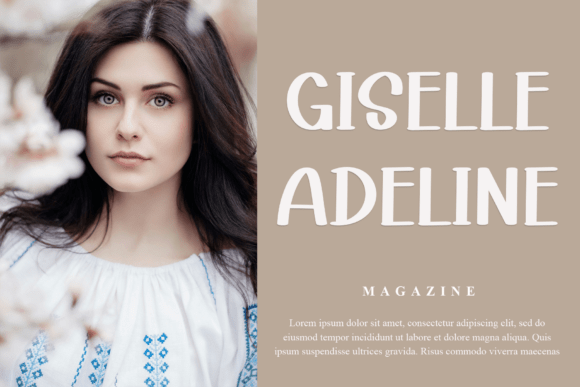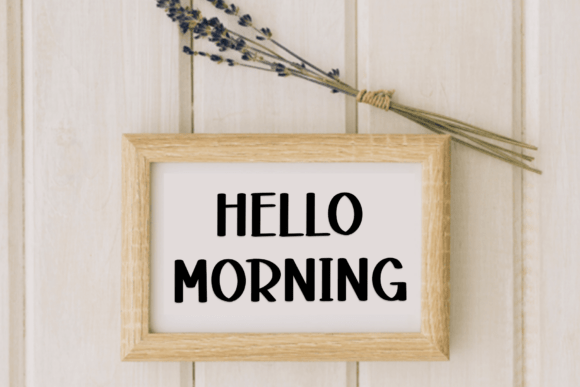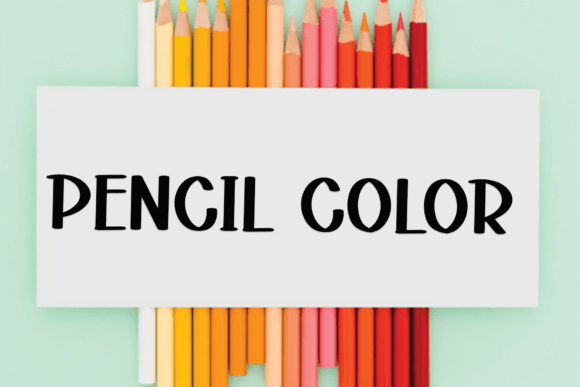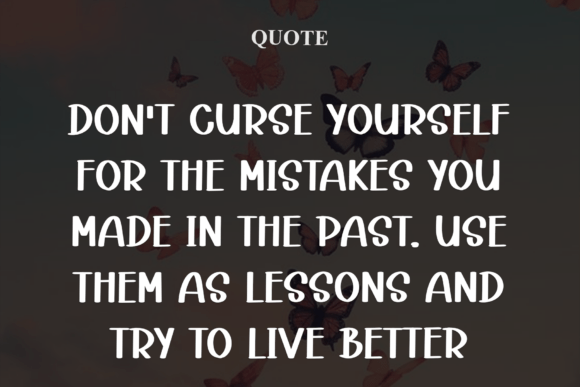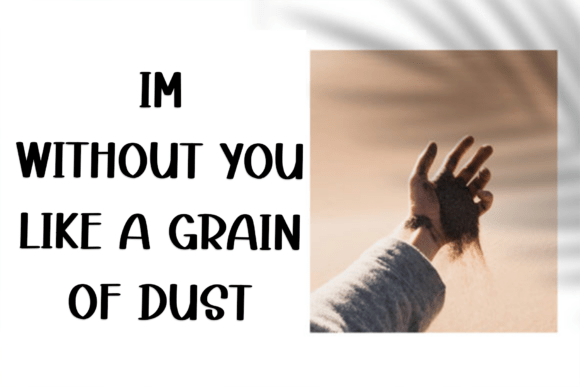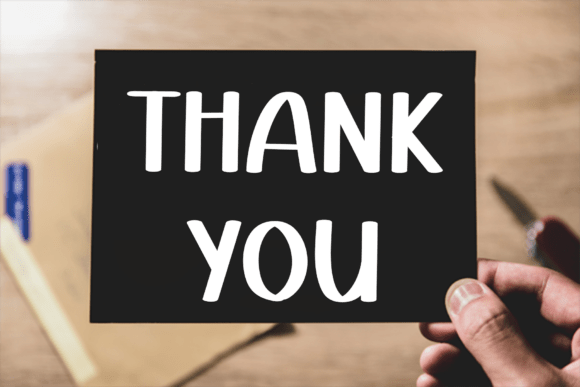
Introducing Hello Child Font: The Ultimate Choice for Kid-Friendly Designs
Are you a designer, teacher, or crafty entrepreneur looking for a font that’s perfect for creating engaging and playful designs for kids? Look no further than Hello Child Font! This delightful display sans-serif font is specifically designed to create bold, kid-friendly headlines that are sure to capture the attention of young minds.
What Makes Hello Child Font So Special?
Hello Child Font is a playful, rounded display sans-serif with chunky strokes and soft terminals that give it a unique and endearing personality. Its tidy spacing and smooth curves ensure that text remains readable, even at larger font sizes, making it ideal for a variety of applications, including:
- Posters and flyers for kids’ events and activities
- Worksheets and educational materials for classrooms
- Labels and stickers for kids’ crafts and projects
- Apparel and merchandise for kids’ brands and businesses
- Social graphics and digital content for kids’ entertainment and education
Perfect for Children’s Brands and Nurseries
Hello Child Font is a perfect fit for children’s brands, nurseries, and educational institutions looking for a fun and engaging way to communicate with their audience. The font’s playful and kid-friendly design makes it an excellent choice for:
- Logo design and branding
- Marketing materials and advertising
- Website and social media graphics
Teacher Resources and Fun Packaging
Teachers and educators will love Hello Child Font for creating engaging and interactive learning materials, such as:
- Worksheets and activity sheets
- Classroom decorations and displays
- Handouts and newsletters
Crafty entrepreneurs will also appreciate Hello Child Font for designing fun and playful packaging for their kids’ products, such as:
- Kids’ clothing and accessories
- Toys and games
- Stationery and craft supplies
- Uppercase and lowercase letters
- Numbers and punctuation marks
- Playful, rounded display sans-serif font
- Chunky strokes and soft terminals for a kid-friendly look
- Tidy spacing and smooth curves for readability
- Includes uppercase and lowercase letters, numbers, and punctuation marks
- Perfect for posters, worksheets, labels, apparel, and social graphics
- Great for children’s brands, nurseries, teacher resources, and fun packaging